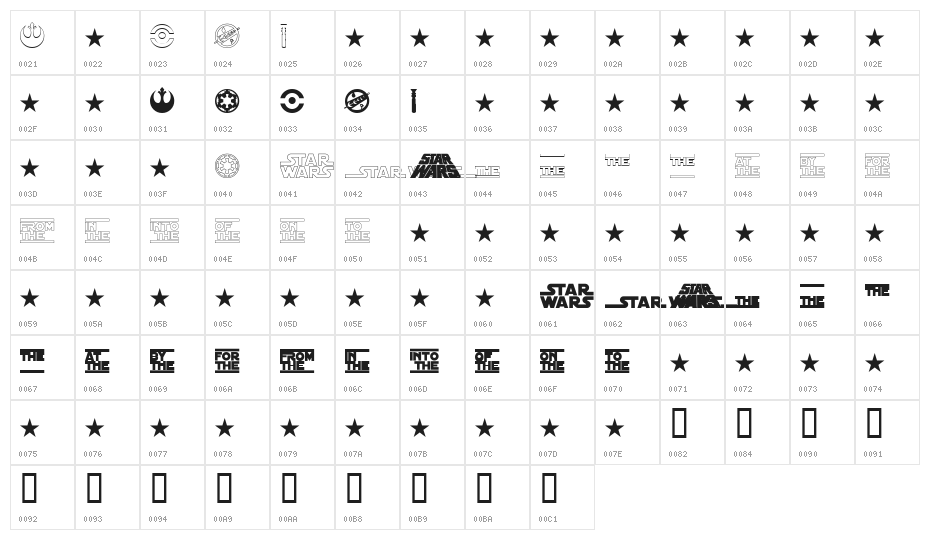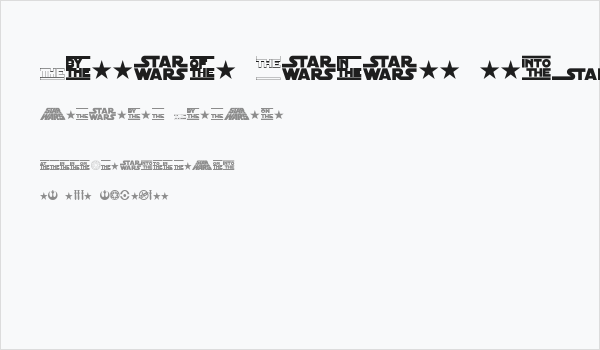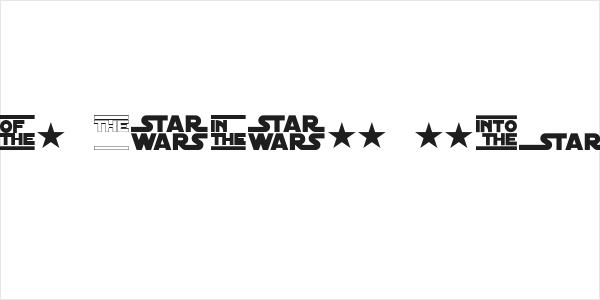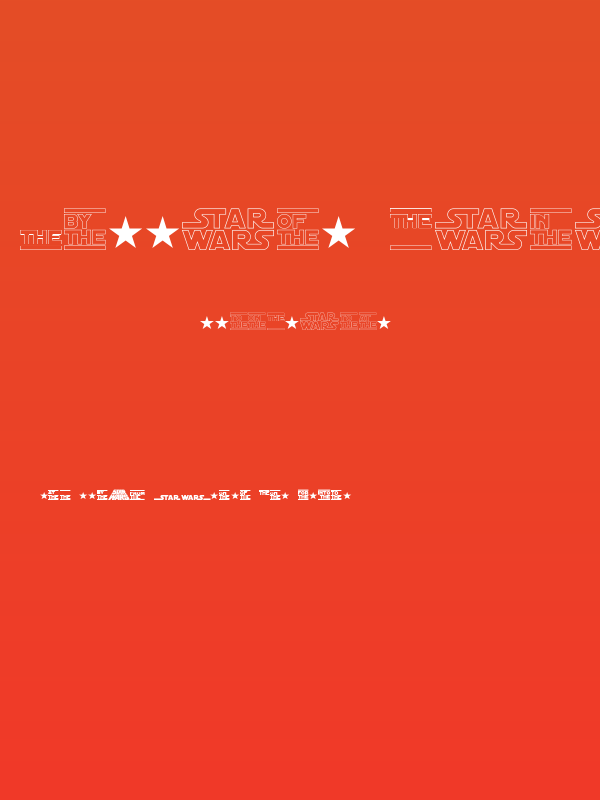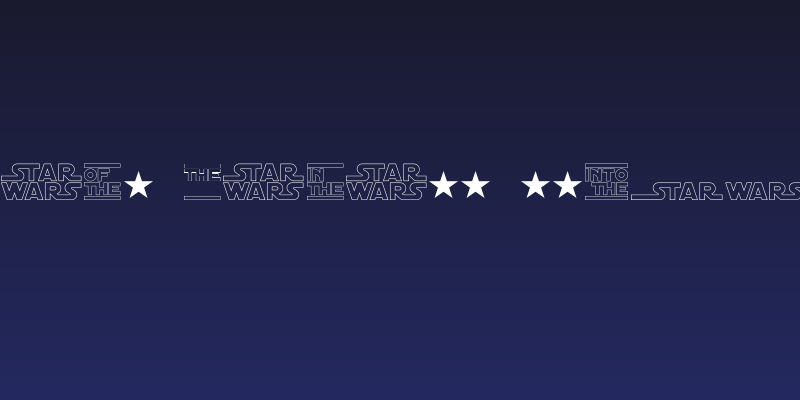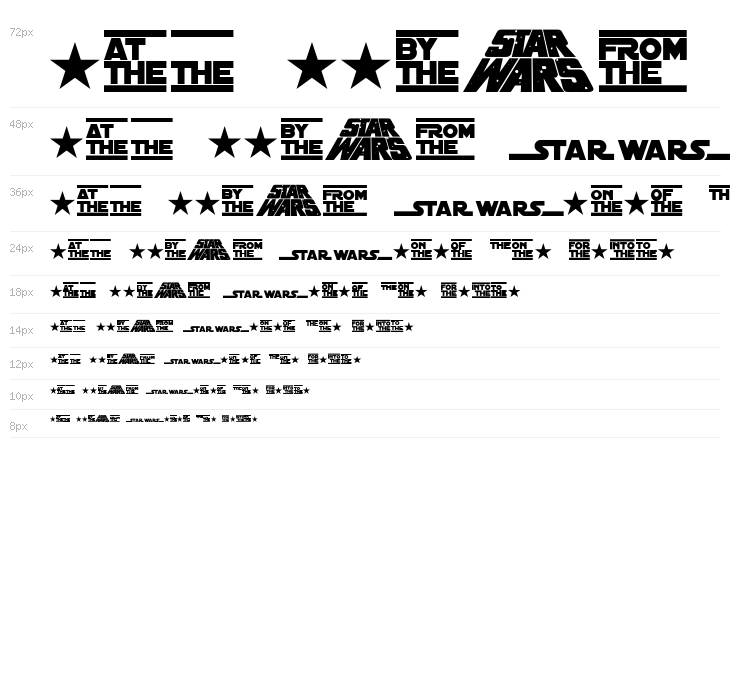
Distant Galaxy Symbols Font
Distant Galaxy Symbols Description
This font is inspired by a distant galaxy theme, featuring bold, geometric letterforms that evoke a sense of adventure and science fiction. The characters are designed with a mix of sharp angles and smooth curves, creating a dynamic and futuristic appearance. The font includes a variety of symbols and icons that are reminiscent of space and interstellar motifs, enhancing its thematic appeal. The overall design is bold and eye-catching, making it suitable for projects that require a strong visual impact. The spacing between characters is consistent, ensuring readability while maintaining its unique style.
| Overall Style | Futuristic, Sci-Fi |
| Proposed Projects | Ideal for sci-fi movie posters, themed event invitations, video game titles, and merchandise branding. |